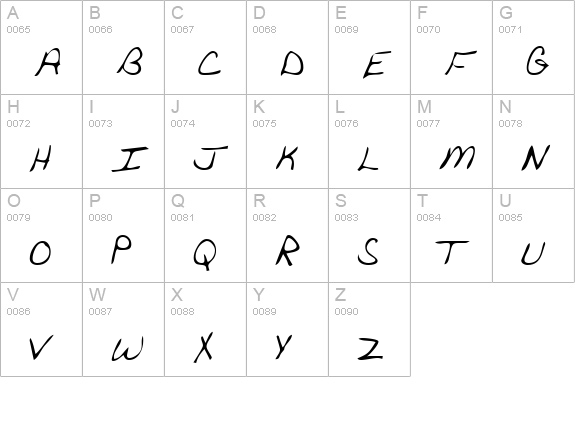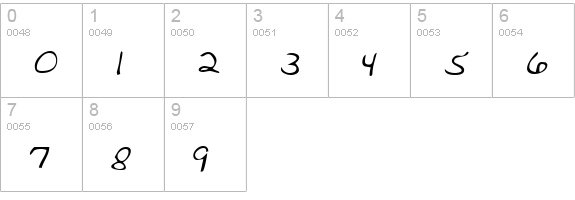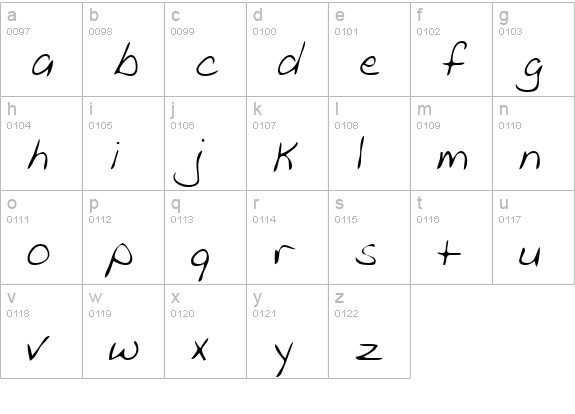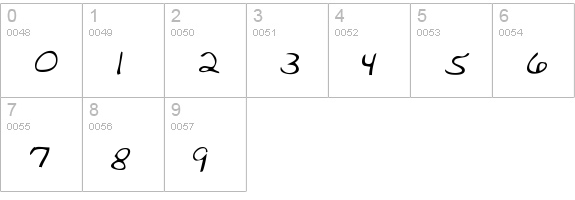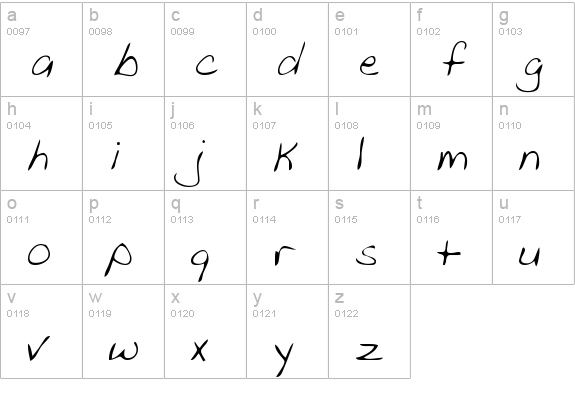
GavinsHand Regular Font Details
GavinsHand Regular is the standard, neutral variant in the GavinsHand typeface family \xE2\x80\x94 well suited to general body text, paragraphs, and standard typographic work.
GavinsHand Regular font exudes a charming and casual handwritten style, perfect for adding a personal touch to your projects. With its smooth lines and fluid strokes, this font captures the essence of effortless elegance. Whether you are designing invitations, branding materials, or social media graphics, GavinsHand Regular will bring a warm and welcoming feel to your creations. The best part? GavinsHand Regular font is available for free download at FontsMarket.com. Embrace the beauty of this delightful font and elevate your designs with its unique flair. Add a touch of whimsy and sophistication to your projects with GavinsHand Regular today!